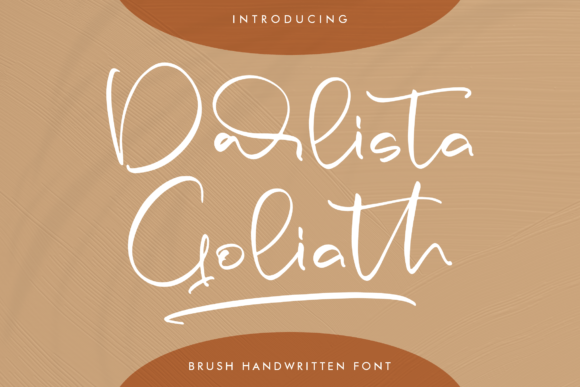
Step into a world of elegance and intrigue with Darlista Goliath, the captivating script font that radiates contemporary charm and impeccable style. Inspired by the timeless allure of classic calligraphy, Darlista Goliath is a masterpiece of balance and variation, carefully crafted to elevate your projects to new heights of sophistication.
Darlista Goliath's graceful curves and confident strokes command attention, adding an air of distinction to any design. Its carefully crafted characters exude a sense of refined artistry, ensuring that your words leave a lasting impression. Whether you're crafting a wanted poster, a wedding invitation, or a heartfelt letter, Darlista Goliath will elevate your message with its timeless beauty.
With its moderate weight, Darlista Goliath strikes a perfect balance between boldness and delicacy. It's not too thin to be overlooked, yet not too thick to overpower your design. This versatility makes it an ideal choice for a wide range of projects, from delicate branding elements to eye-catching headlines.
But Darlista Goliath is more than just a pretty face. Its carefully designed kerning and spacing ensure optimal readability, even in small sizes. This makes it a practical choice for both print and digital projects, ensuring that your message is conveyed clearly and effectively.
So, if you seek a font that combines timeless elegance with contemporary charm, look no further than Darlista Goliath. Its captivating curves and impeccable form will transform your projects into works of art, leaving a lasting impression on your audience. Embrace the allure of Darlista Goliath and let your creativity soar.